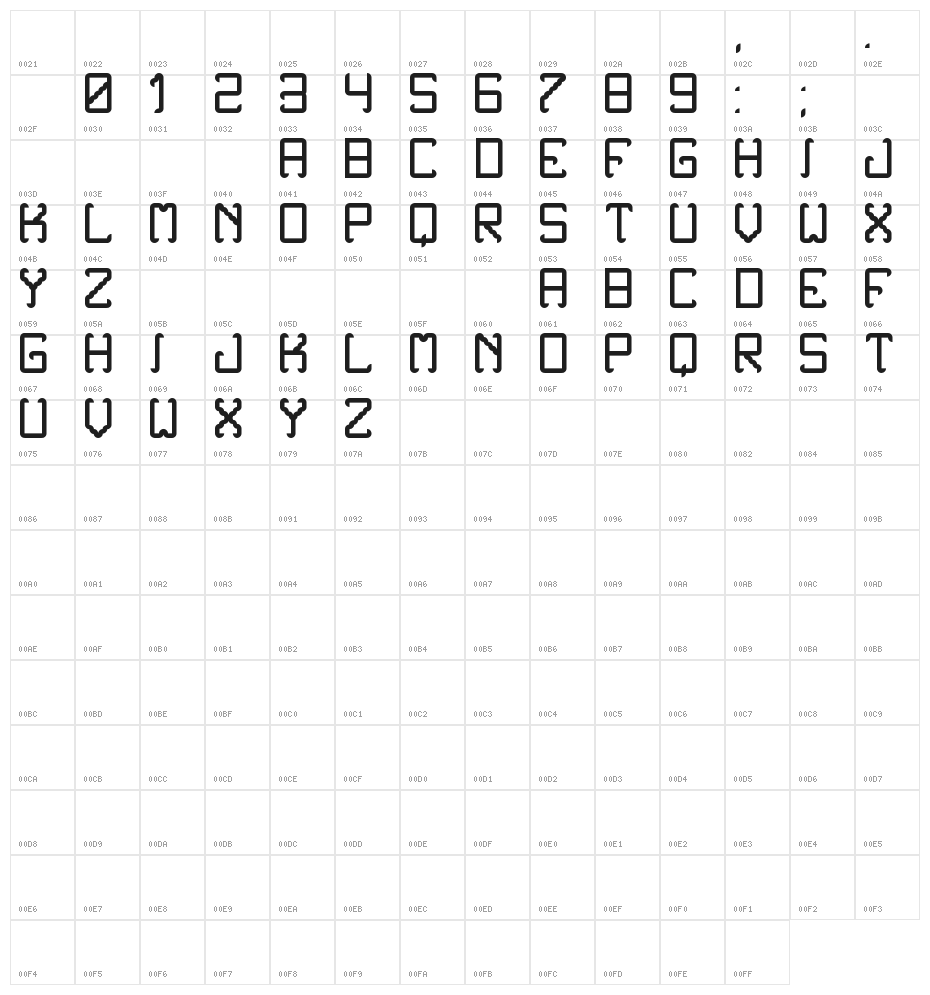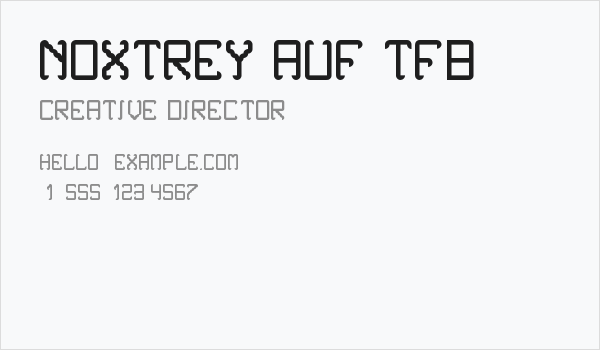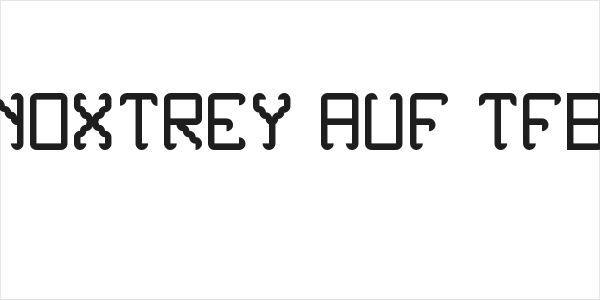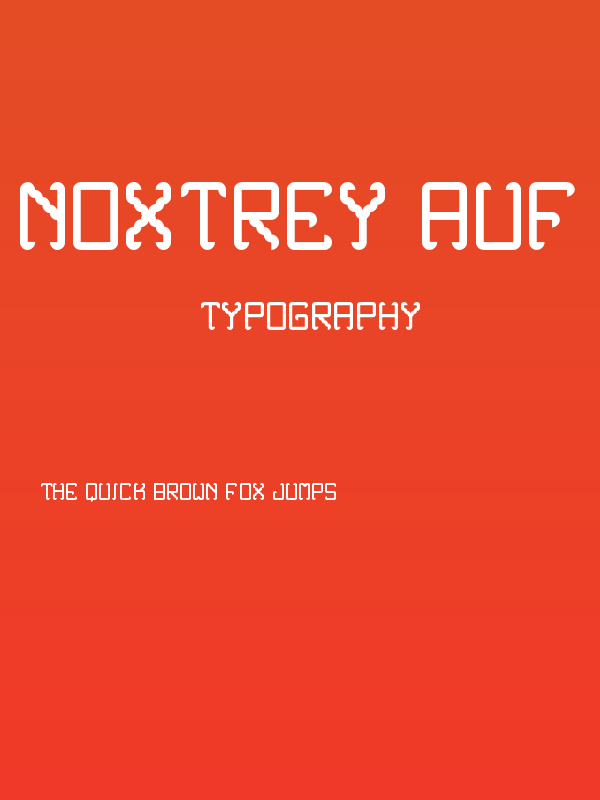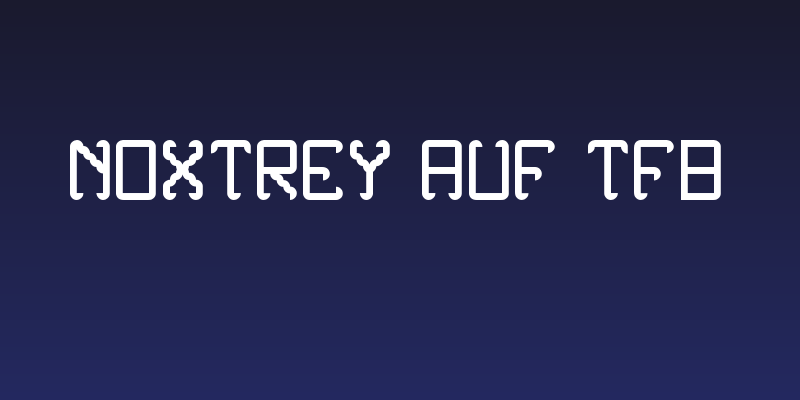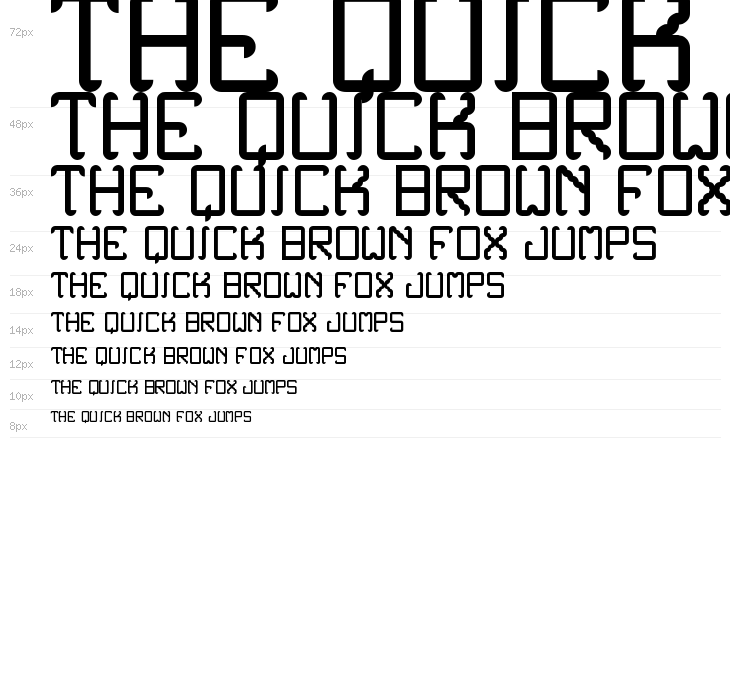
Noxtrey Auf tfb Font
Noxtrey Auf tfb Description
This font features a unique and modern design with a geometric and futuristic style. The characters are constructed with a consistent stroke width, creating a uniform appearance. The font has a digital, tech-inspired aesthetic, with angular and squared-off edges that give it a distinctive look. The uppercase and lowercase letters maintain a consistent height, and the numbers are designed to match the overall style. The special characters blend seamlessly with the rest of the set, maintaining the font's cohesive appearance. This font is ideal for projects that require a contemporary and innovative touch.
| Use Case | Logos, Headlines, Digital interfaces |
| Proposed Projects | Ideal for technology branding, digital media, video game design, and futuristic-themed projects. |